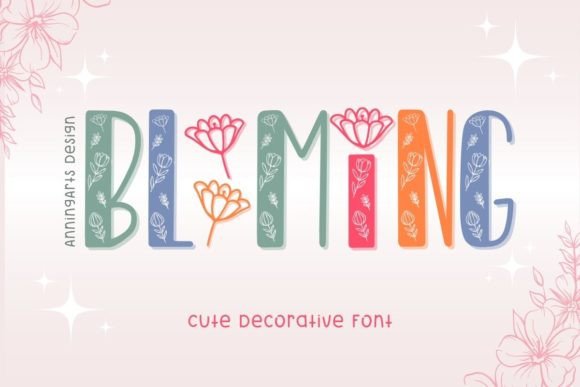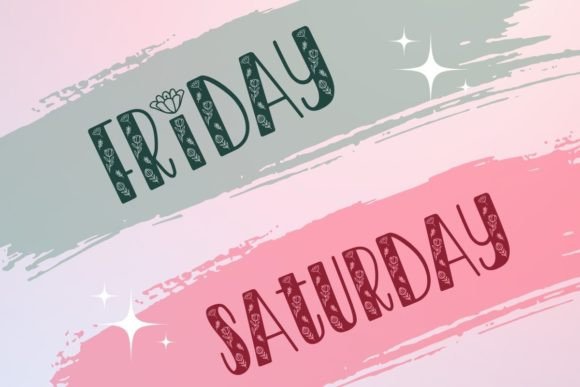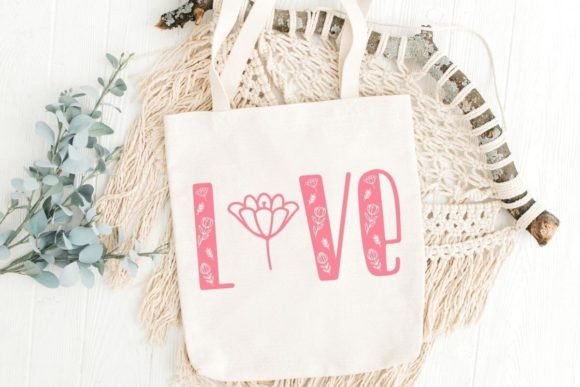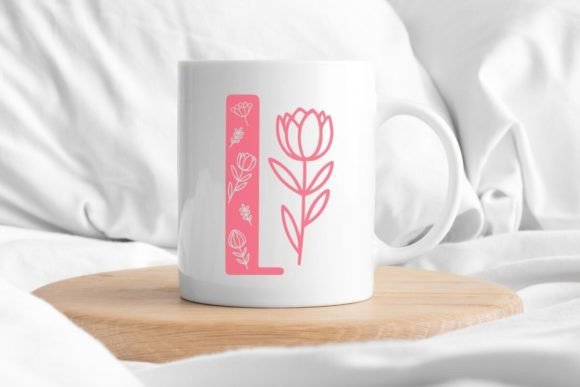
About the Blooming Font
Unleash your creativity with Blooming Font, a versatile font perfect for a wide range of applications. Blooming is a cute decorative font decorated with blooming flowers. The quirky design adds a fun touch to any project. Perfect for creating various new designs to match products such as banners, content, mugs, cards, shirts, stationery, social media posts, and more!
Blooming thrives in applications requiring a lighthearted and playful touch, such as children’s books, invitations, or social media graphics. Its decorative nature makes it ideal for short headlines, branding elements needing visual charm, or packaging designs for products targeting a younger demographic. Avoid using Blooming for large blocks of text or body copy; its ornate details hinder readability in extended use.
Pairing Blooming with a clean sans-serif like Open Sans for body text creates a balanced contrast. For a more sophisticated feel, consider pairing it with a classic serif font such as Garamond for supporting elements. A simple geometric sans-serif could also work well to provide a modern counterpoint to Blooming’s playful flourishes.
Blooming’s overall personality is undeniably cheerful and whimsical. Its visual energy is best suited for brands projecting a friendly, approachable, and possibly slightly quirky image.
Blooming Font Usage Examples
Blooming Font Example